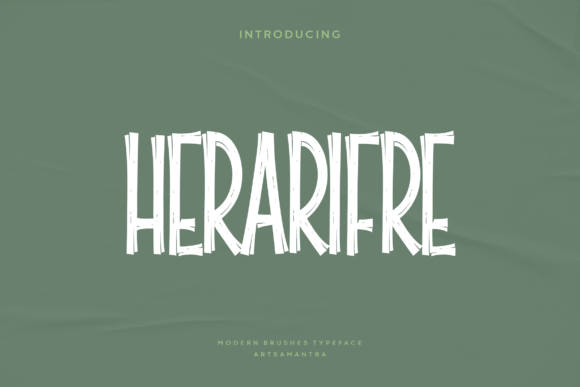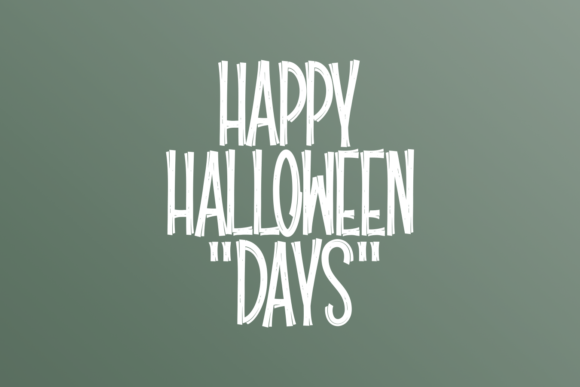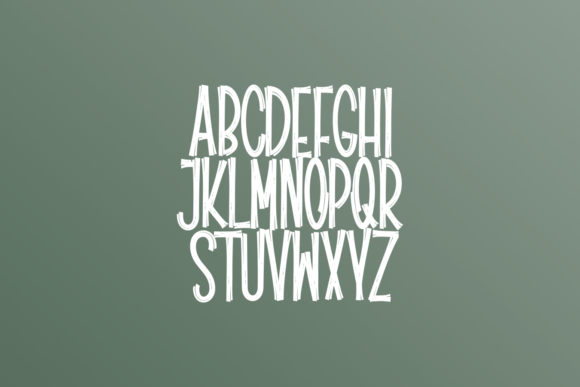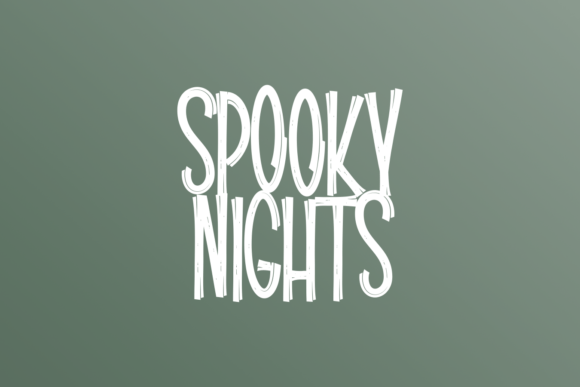
Herarifre Font: Spooky Halloween Display Font for Cricut & DIY Projects
About the Herarifre Font
Unleash your creativity with Herarifre Font, a versatile font perfect for a wide range of applications. Herarifre is a Halloween-themed display font with a wood-like texture and brush strokes. Fonts like these are often used to create effects that suit a Halloween atmosphere, especially if you want to give your design a vintage or mysterious look. Herarifre coming in all-caps, this font is perfect for creating signs, decorations, invitations, or any other Halloween project that aims to highlight the Halloween atmosphere with a unique touch.
Herarifre’s strong, textured forms make it ideal for headlines, posters, and short impactful branding elements where its Halloween aesthetic can shine. It excels in creating a vintage, slightly spooky feel, perfect for themed events or products. Avoid using it for body text or UI elements; its highly decorative nature makes it unsuitable for extended reading.
Its bold, mysterious personality pairs well with clean sans-serifs like Montserrat or Open Sans for contrast. For a more unified, vintage look, consider pairing it with a serif like Playfair Display or a slightly distressed serif like Libre Baskerville. A script font like Great Vibes could add an extra touch of elegance to certain applications, but should be used sparingly.
The font’s overall mood is dark, dramatic, and attention-grabbing—perfectly suited for brands and projects aiming for a vintage Halloween or gothic aesthetic.
Herarifre Font Example